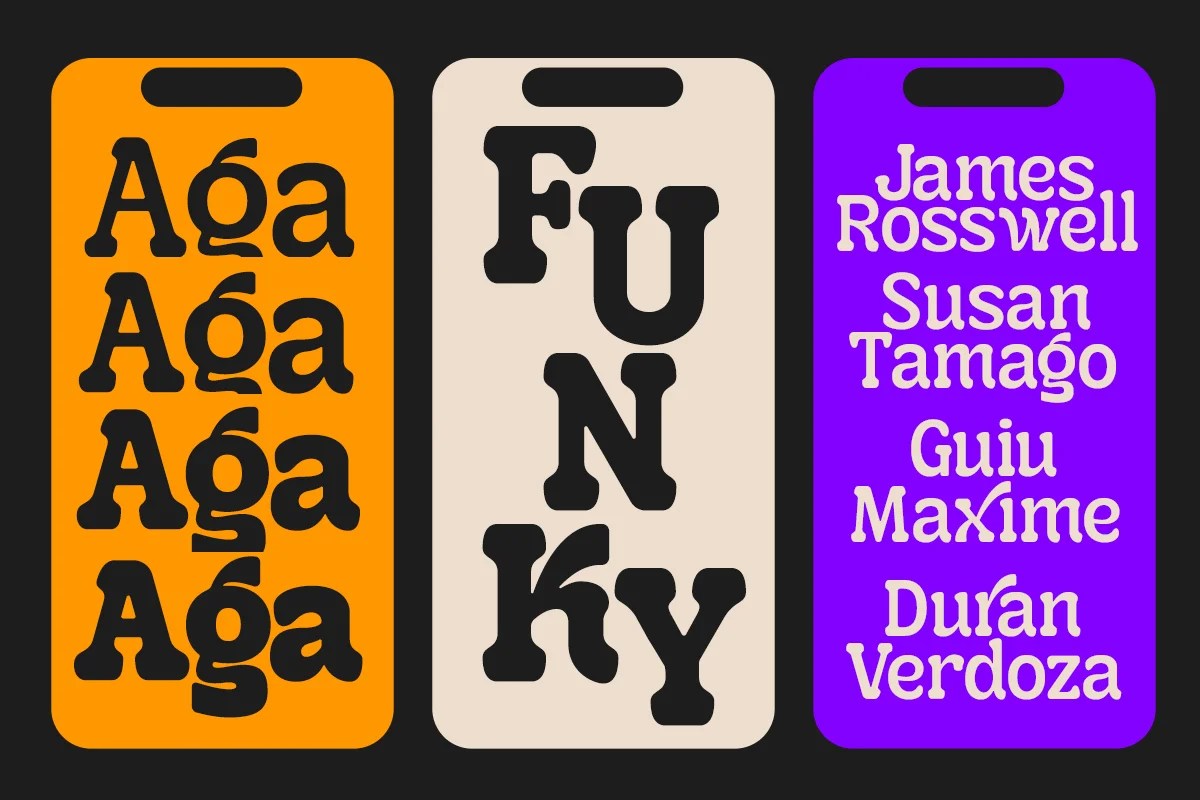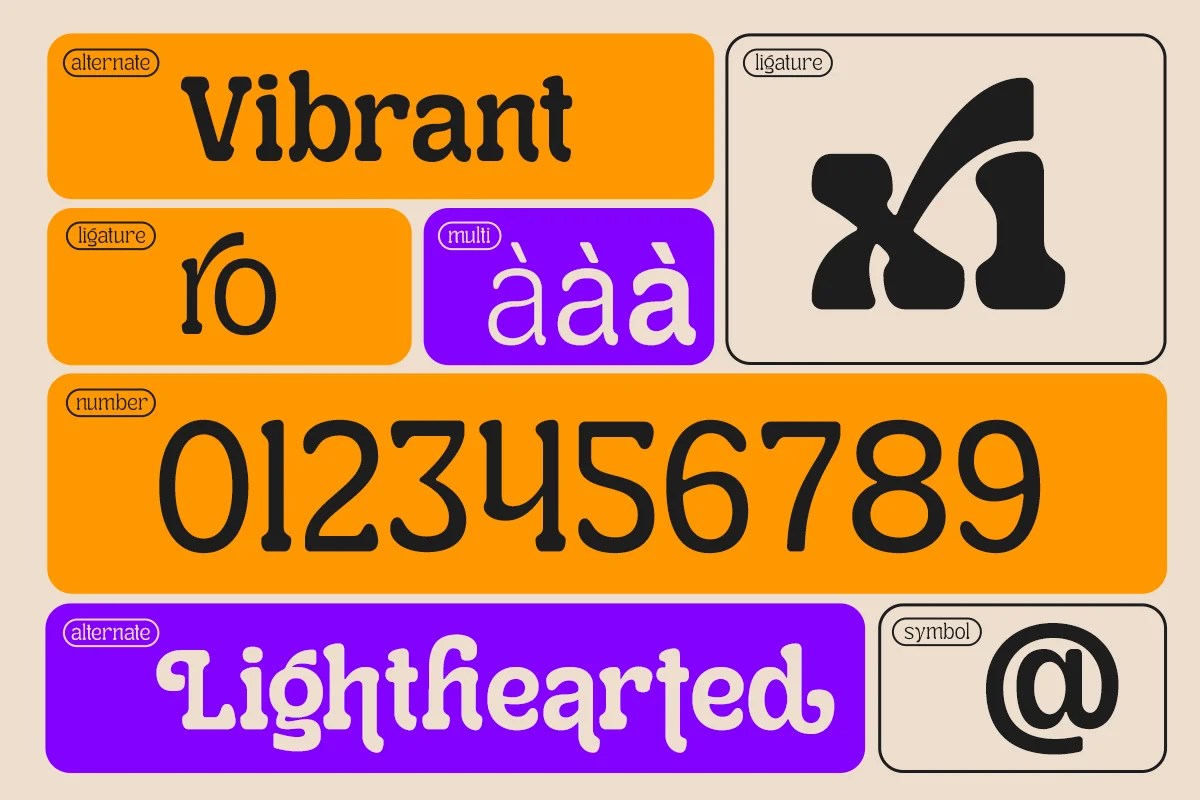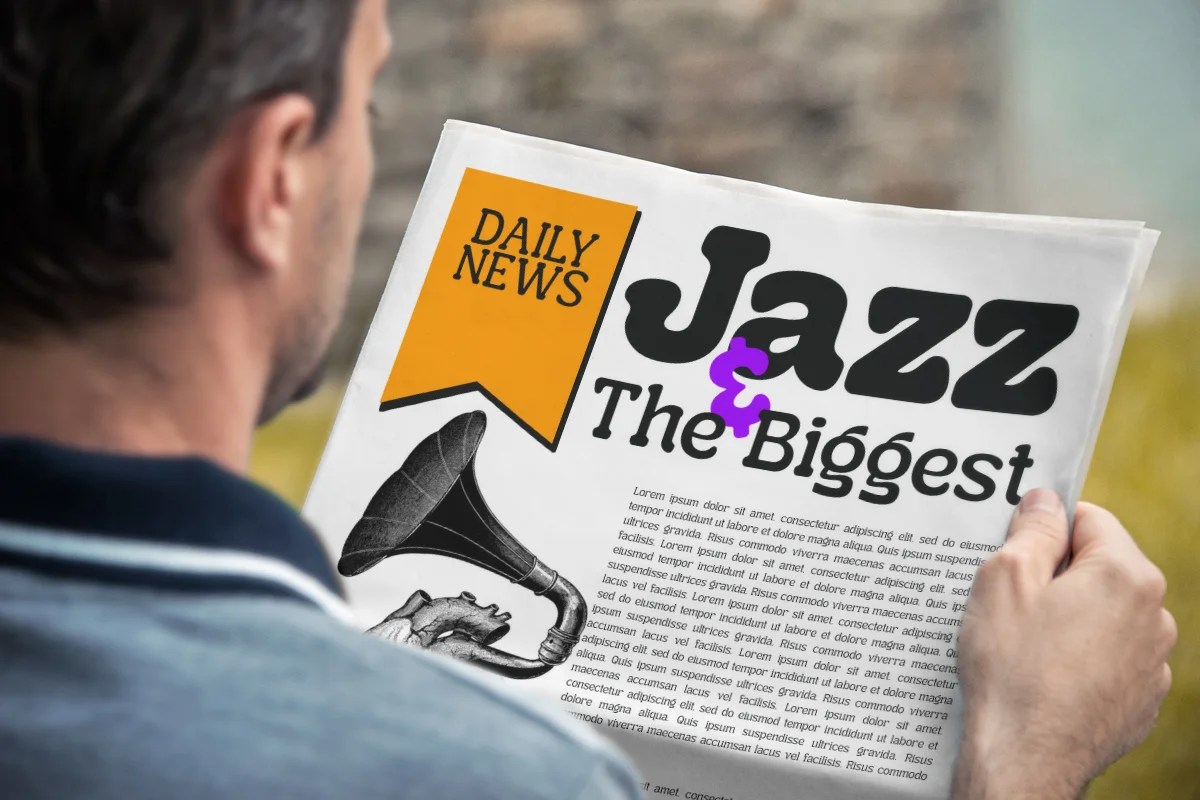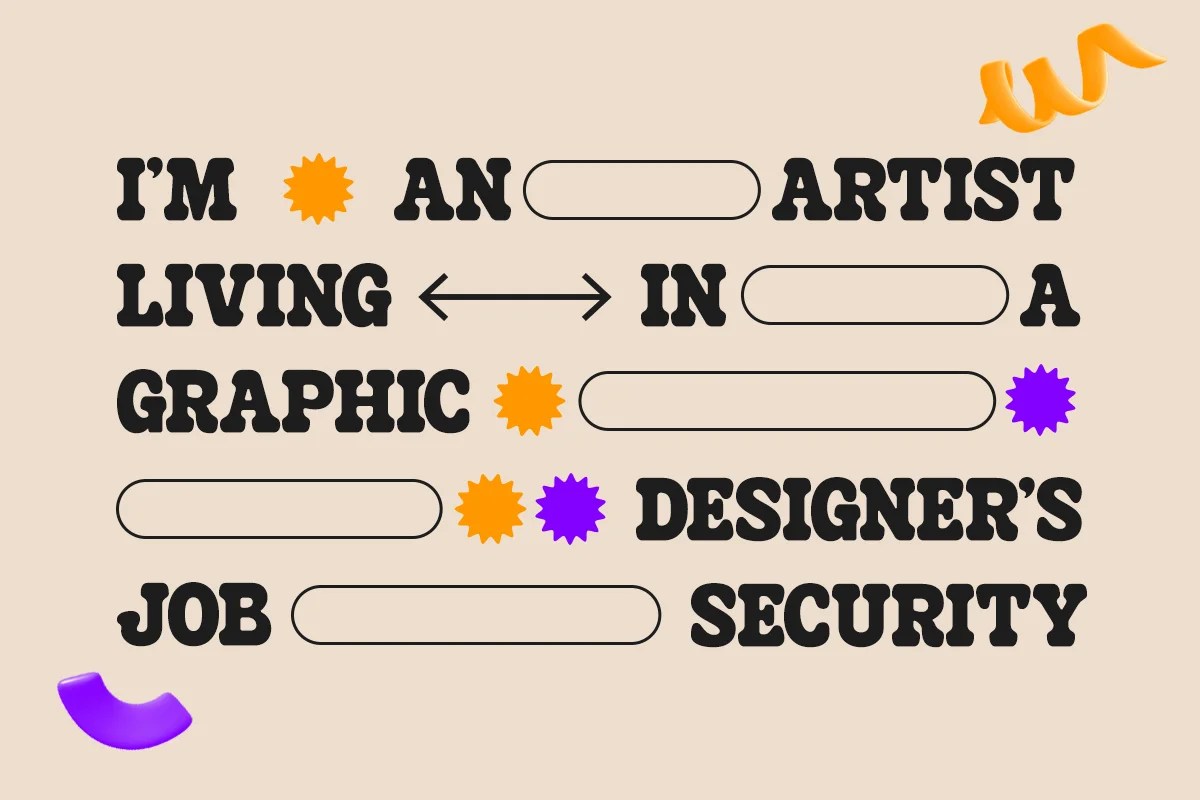
Mondwild by Dharmas Studio is a sophisticated and versatile Serif Font that offers a delightful blend of classic elegance and a modern, artistic touch. This beautifully crafted typeface is perfect for projects that demand a refined yet unique visual presence, such as luxurious branding, high-end editorial layouts, distinguished invitations, and compelling book designs. Its graceful serifs and meticulously balanced letterforms ensure excellent readability while adding a touch of bold individuality to your text.
This font is an excellent choice for designers, publishers, and creatives seeking a versatile and stylish typeface for their personal endeavors. Whether you’re crafting a premium logo, designing a chic magazine spread, or creating captivating digital content, Mondwild provides a professional and artistic touch that stands out with its contemporary character.
• Sophisticated and versatile serif font design
• Blends classic elegance with a modern, artistic flair
• Ideal for luxurious branding, editorial, print, and digital media
• Suitable for logos, magazines, books, invitations, and website typography
• Polished and unique aesthetic
• Great for personal projects and artistic creations
• Designed for a refined and distinctive feel
Mondwild